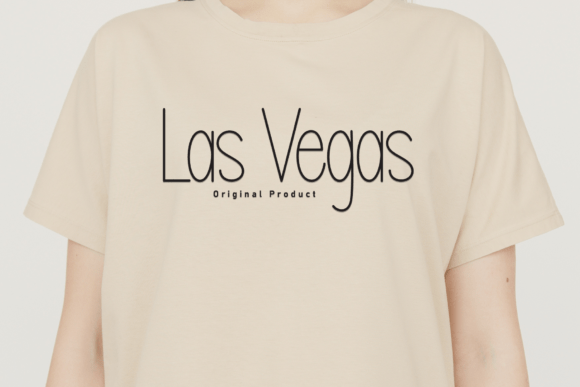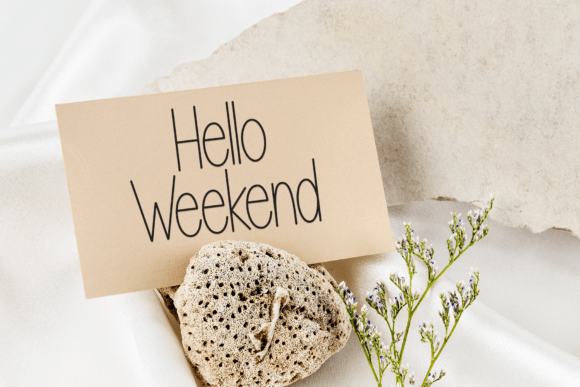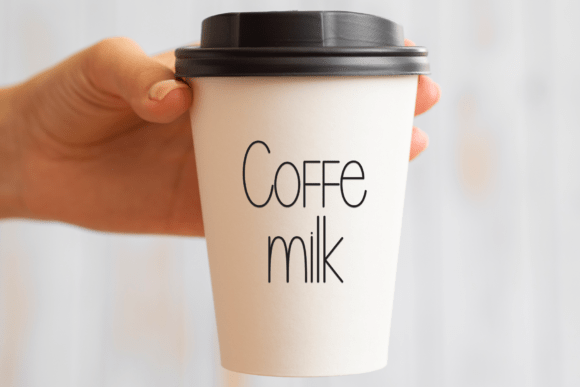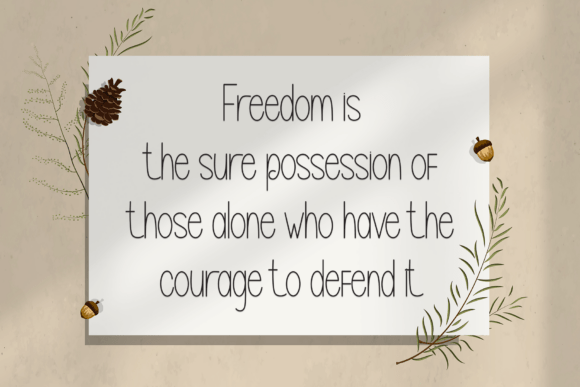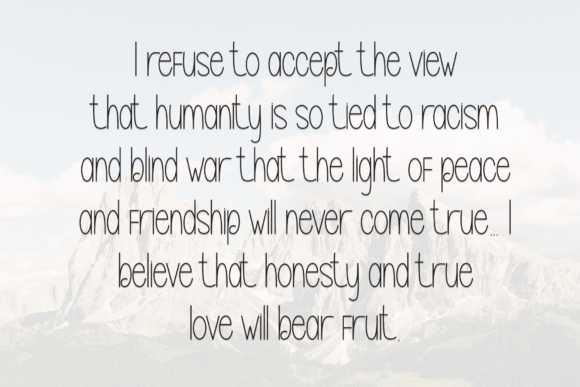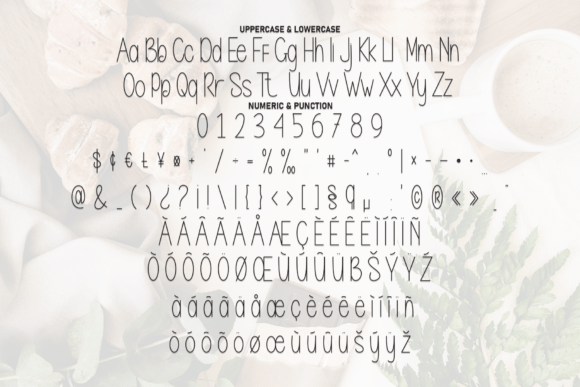
Introducing Happy Sunday Font: The Perfect Blend of Casual and Friendly
Are you tired of using the same old fonts for your designs? Look no further than Happy Sunday Font, a casual handwritten font that brings a relaxed and friendly personality to your projects. With its smooth strokes, natural curves, and well-balanced letterforms, Happy Sunday Font captures the charm of authentic handwriting with a modern finish.
The Characteristics of Happy Sunday Font
Happy Sunday Font is a carefully crafted font that boasts a range of characteristics that make it perfect for a variety of design applications. Some of its key features include:
- Smooth Strokes: Happy Sunday Font features smooth, flowing strokes that give it a natural and effortless look.
- Natural Curves: The font’s curves are organic and fluid, adding to its friendly and approachable personality.
- Well-Balanced Letterforms: Each letterform is carefully balanced to ensure that the font is easy to read and visually appealing.
The Benefits of Using Happy Sunday Font
So why should you choose Happy Sunday Font for your designs? Here are just a few benefits of using this versatile font:
- Ideal for Quotes: Happy Sunday Font is perfect for use in quotes, adding a touch of personality and whimsy to your text.
- Branding and Packaging: The font’s friendly and approachable personality makes it ideal for use in branding and packaging design.
- Social Media Posts: Happy Sunday Font is also perfect for use in social media posts, adding a warm and engaging touch to your online content.
- Readability and Charm: With its effortless flow and versatile character, Happy Sunday Font delivers both readability and charm, making it perfect for a wide range of design applications.
How to Use Happy Sunday Font in Your Designs
Using Happy Sunday Font in your designs is easy. Here are a few tips to get you started:
- Pair it with Other Fonts: Happy Sunday Font pairs well with a range of other fonts, so don’t be afraid to experiment and find the perfect combination for your design.
- Use it in Headlines and Body Text: The font’s readability and charm make it perfect for use in both headlines and body text.
- Add a Personal Touch: Happy Sunday Font is perfect for adding a personal touch to your designs, so don’t be afraid to get creative and add your own unique flair.
Why Designers and Crafters Love Happy Sunday Font
Happy Sunday Font has quickly become a favorite among designers and crafters, and for good reason. Here are just a few reasons why:
- Unique and Eye-Catching: The font’s unique and eye-catching design makes it perfect for designers and crafters looking to add a touch of personality to their work.
- Versatile: Happy Sunday Font is versatile and can be used in a wide range of design applications, from branding and packaging to social media posts and quotes.
- Easy to Read: The font’s readability makes it perfect for use in body text, while its charm and personality make it ideal for use in headlines and titles.
In conclusion, Happy Sunday Font is a casual handwritten font that brings a relaxed and friendly personality to your designs. With its smooth strokes, natural curves, and well-balanced letterforms, it captures the charm of authentic handwriting with a modern finish. Whether you’re a designer, crafter, or simply someone looking to add a touch of personality to your projects, Happy Sunday Font is the perfect choice.